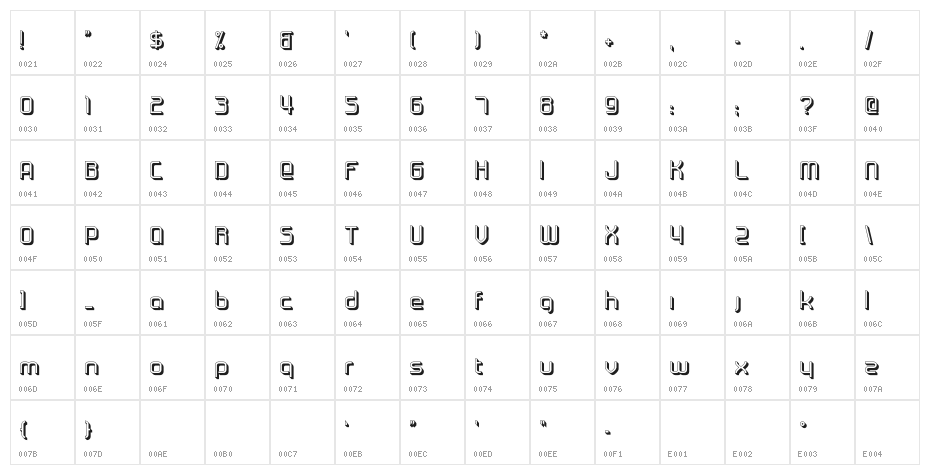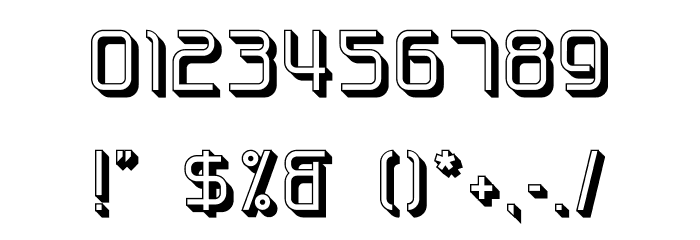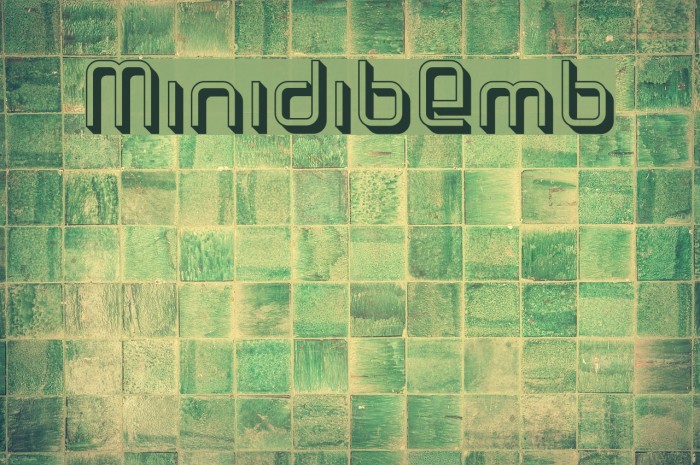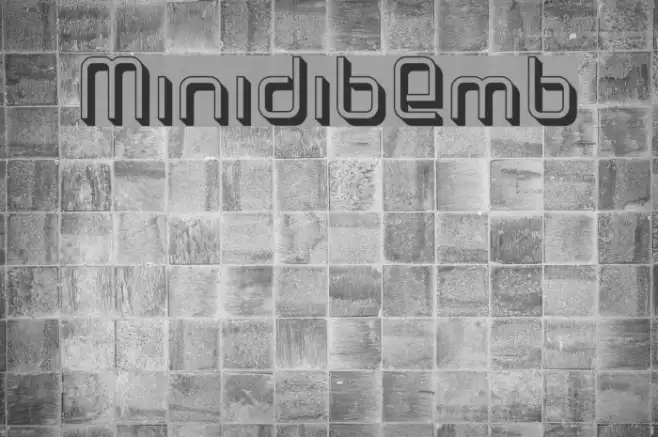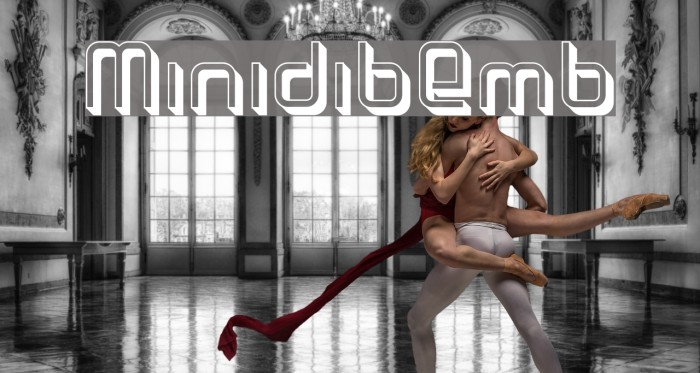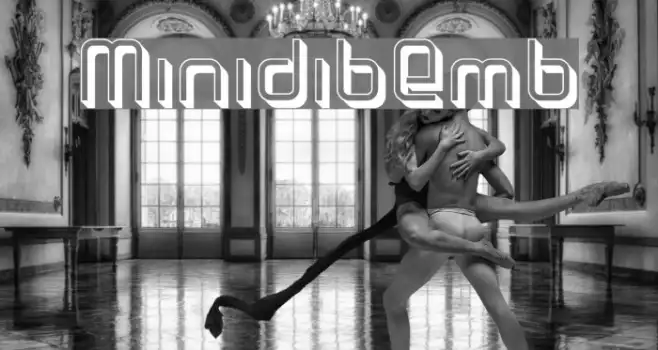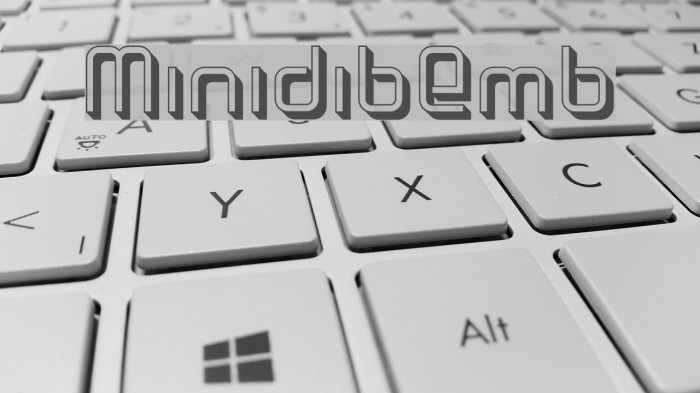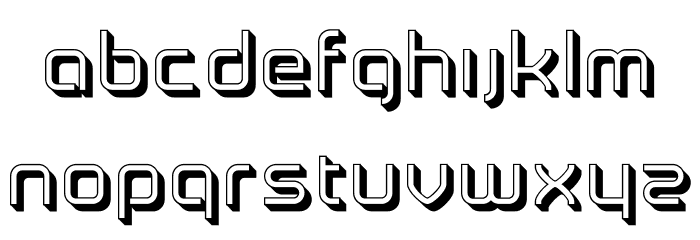
MinidibEmb Font
MinidibEmb Description
This font features a bold, geometric design with a three-dimensional effect, giving it a modern and futuristic appearance. The characters are outlined with a shadow that creates depth, making them stand out prominently. The uppercase and lowercase letters maintain a consistent style, with rounded edges and a uniform thickness that enhances readability. The numerals and special characters follow the same design principles, ensuring a cohesive look across all text elements. This font is ideal for projects that require a striking and contemporary aesthetic.
| Proposed Projects | Ideal for branding, posters, video game graphics, and futuristic-themed designs. |